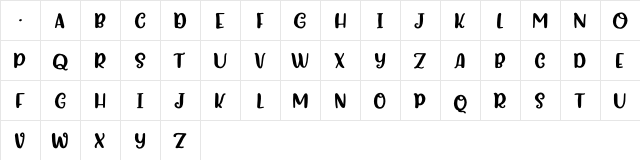
Love At First Sight Sans Regular
| Designer | Ay͡ Atalay |
Design Context for Love At First Sight Sans Typeface
Love At First Sight Sans is a composed and adaptable typeface that performs quietly and consistently across a wide range of design contexts.